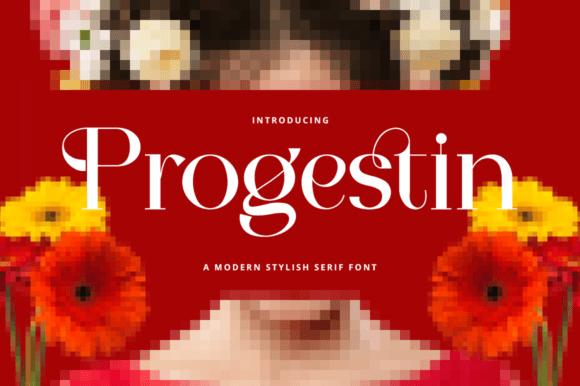
Introducing Progestin Font, the epitome of elegance and sophistication! Crafted with meticulous attention to detail by the talented RockboyStudio, this thin-lettered serif font is destined to leave a lasting impression on your designs. Whether you're creating business invoices, professional presentations, or simply want to add a touch of refinement to your projects, Progestin is the perfect choice.
With its distinct and clean style, Progestin Font exudes professionalism and class like no other. Its sleek and slender letters effortlessly capture attention, making it ideal for any design that requires a touch of finesse. From corporate branding to high-end product packaging, this font effortlessly elevates your creations to new heights.
Searching for the best font for your business invoices? Look no further than Progestin Font. Its timeless appeal and legibility ensure that your invoices will not only be visually stunning but also convey a sense of trust and reliability to your clients. Impress them with your attention to detail and professionalism, leaving a lasting impression that sets you apart from the competition.
But Progestin Font offers more than just beauty and functionality; it evokes emotions and tells a story. Its elegant curves and delicate strokes create a sense of grace and charm, captivating your audience from the moment they lay eyes on your design. Let Progestin Font be the voice of your brand, conveying your message with style and sophistication.
Embrace the endless possibilities that Progestin Font brings to your creative arsenal. Its versatility knows no bounds, seamlessly adapting to any design concept or industry. Whether you're a graphic designer, marketer, or entrepreneur, Progestin Font empowers you to unleash your creativity and make a lasting impact.
In summary, Progestin Font is more than just a font; it's a statement of excellence and refinement. Its elegant and distinct serif style, coupled with its versatility, make it the go-to font for any design project. Let Progestin Font elevate your creations and leave a lasting impression on your audience. Download now and embark on a journey of visual storytelling like never before!